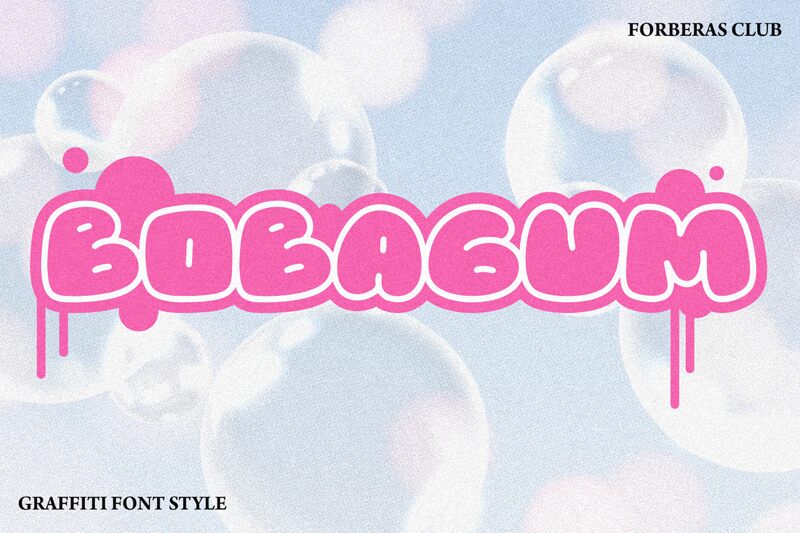
Bobagum
Bobagum font, designed by Forberas Club, captures the raw energy of street art with its outlined graffiti style. This bold and expressive typeface makes an eye-catching statement, featuring strikingly expanded forms that amplify its dynamic personality. The playful curves and sharp angles create a sense of movement, making it perfect for projects that seek to convey youthful exuberance and creativity.
Ideal for branding, posters, or any artistic endeavor where vibrant expression is key, Bobagum elevates messages with its graphic flair. Its unique aesthetic is sure to resonate in environments looking to engage an audience with lively and spirited design elements. Whether for urban-themed projects or modern graphics, Bobagum stands out as a versatile choice for those seeking to infuse originality into their work.